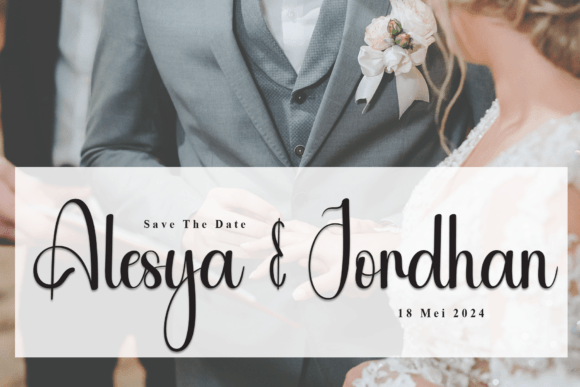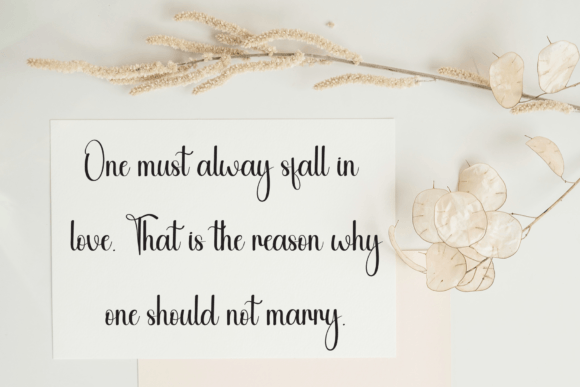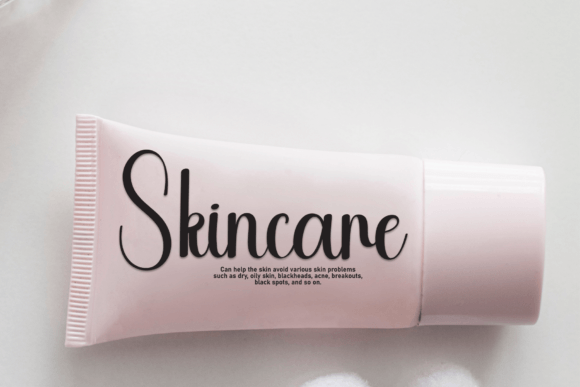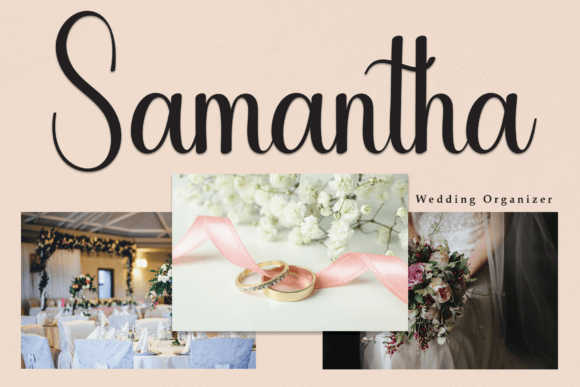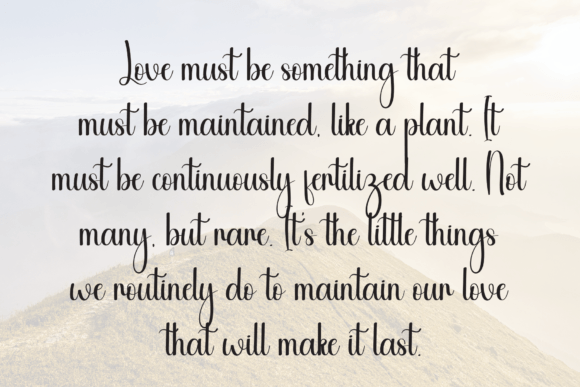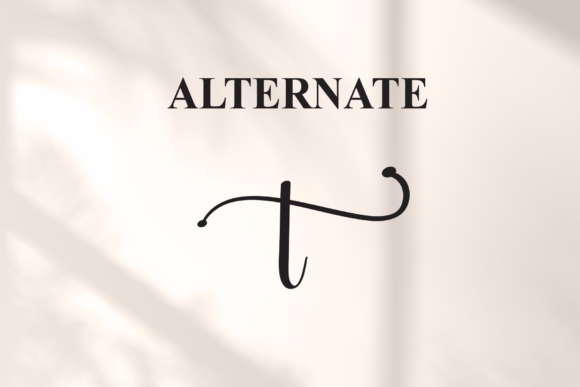
Introducing Another Font: The Sweet and Friendly Handwritten Font You Need
Are you tired of using the same old fonts for your designs? Look no further! Another Font is a beautiful, sweet, and friendly handwritten font that’s perfect for adding a fun touch to your projects. In this article, we’ll dive into the features and benefits of Another Font, and explore how you can use it to take your designs to the next level.
What is Another Font?
Another Font is a gorgeous handwritten font that’s designed to bring a smile to your face. It’s a cute and fun font that’s ideal for writing wedding invitations, cards, or any other design that might need a personal touch. With its sweet and friendly vibe, Another Font is sure to capture the hearts of your audience and make your designs stand out.
Features of Another Font
- Handwritten style: Another Font has a beautiful, handwritten style that’s perfect for creating personal and unique designs.
- Cute and fun: This font is designed to be fun and playful, making it ideal for designs that need a touch of whimsy.
- Versatile: Another Font can be used for a wide range of designs, from wedding invitations to cards, posters, and more.
- Easy to read: Despite its playful style, Another Font is easy to read and understand, making it perfect for body text and headings.
Benefits of Using Another Font
So why should you use Another Font in your designs? Here are just a few benefits:
- Adds a personal touch: Another Font’s handwritten style adds a personal touch to your designs, making them feel more unique and special.
- Creates a emotional connection: The sweet and friendly vibe of Another Font can help create an emotional connection with your audience, making them more likely to engage with your design.
- Perfect for creative projects: Another Font is ideal for creative projects, such as wedding invitations, cards, and other designs that require a touch of personality.
How to Use Another Font in Your Designs
Using Another Font in your designs is easy! Here are a few tips to get you started:
- Pair it with other fonts: Another Font pairs well with other fonts, so feel free to experiment with different combinations to create a unique look.
- Use it for headings and body text: Another Font is easy to read, making it perfect for both headings and body text.
- Add some flair: Use Another Font to add some flair to your designs, such as in titles, subtitles, or captions.
Design Ideas Using Another Font
Need some inspiration for using Another Font in your designs? Here are a few ideas to get you started:
- Wedding invitations: Another Font is perfect for writing beautiful and unique wedding invitations that will set the tone for the big day.
- Birthday cards: Use Another Font to create fun and playful birthday cards that will make the recipient feel special.
- Posters and flyers: Another Font can add a touch of personality to your posters and flyers, making them more eye-catching and engaging.
In conclusion, Another Font is a sweet and friendly handwritten font that’s perfect for adding a fun touch to your designs. With its cute and playful style, Another Font is ideal for creative projects, such as wedding invitations, cards, and other designs that require a personal touch. So why not give it a try and see how it can elevate your designs to the next level?